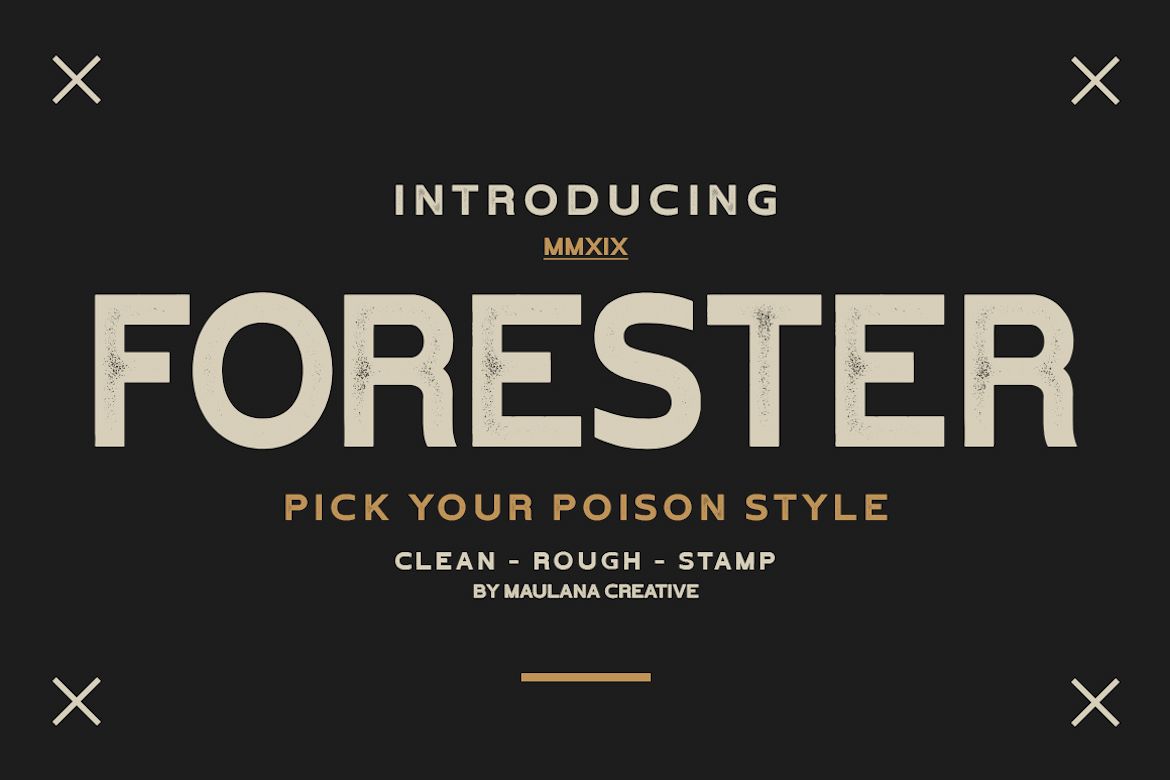
Forester Vintage Sans Serif
Forester is a vintage sans serif with a Clean, Rough & Stamp. Forester Vintage Font is perfectly suited to branding, logos, magazines, films, website, headlines, titles, captions, games, apps, posters, t-shirts and more.This font available: